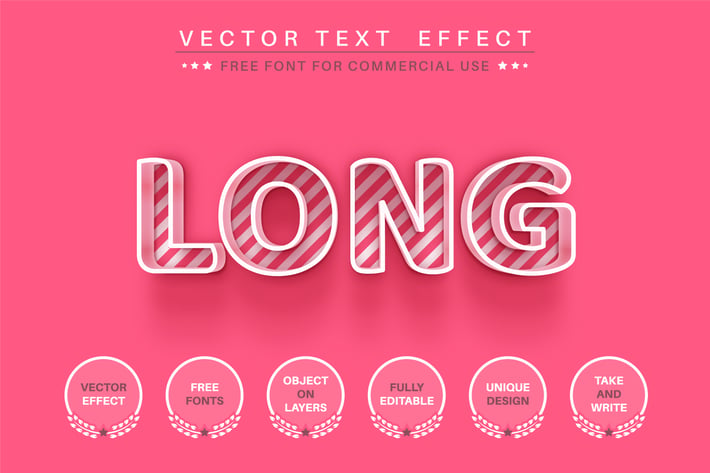
Outline pink - editable text effect, font style
Hello! I'm happy to introduce my new text effect "Pink outline". Just write your word and the effect will apply! Be as creative as you like to be in expressing yourself using this unique “Pink outline”. Effect is perfect for any project that needs a unique handy touch whatever else your imagination leads you to!